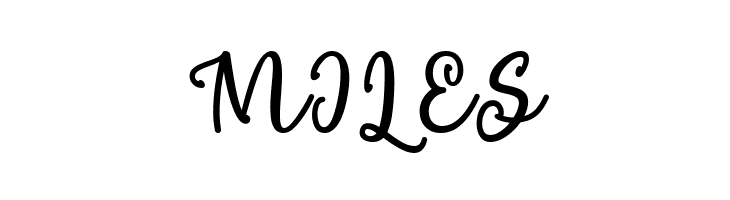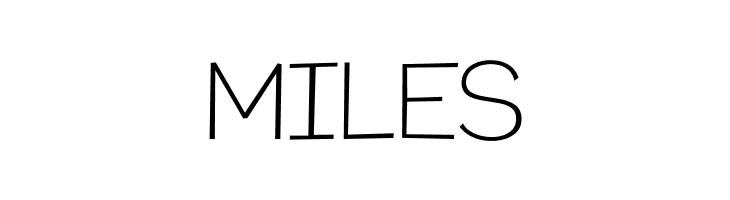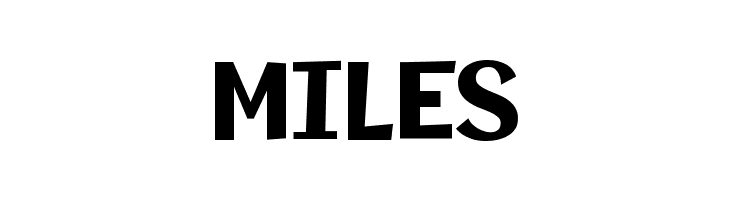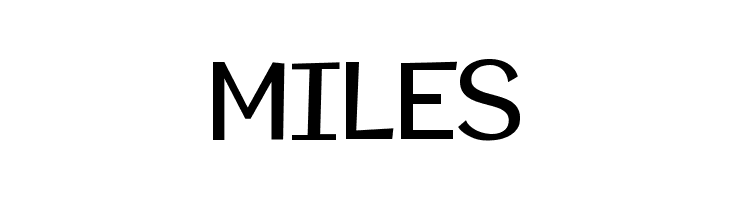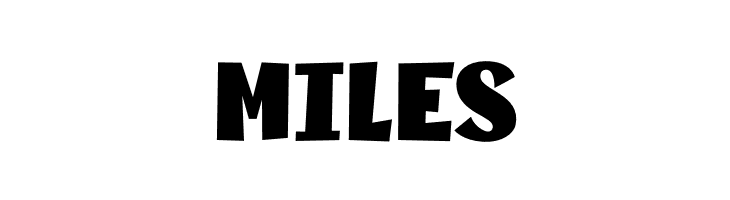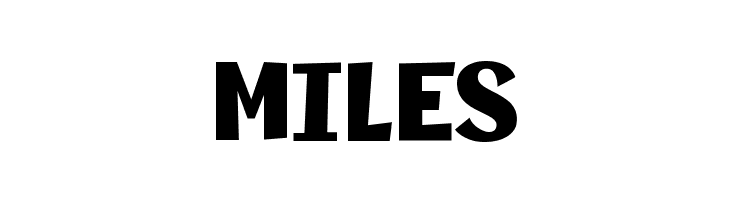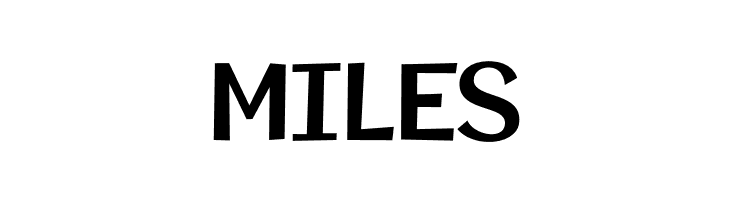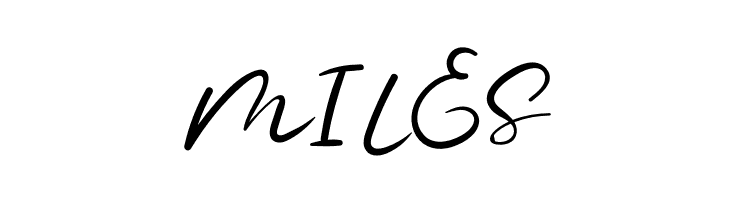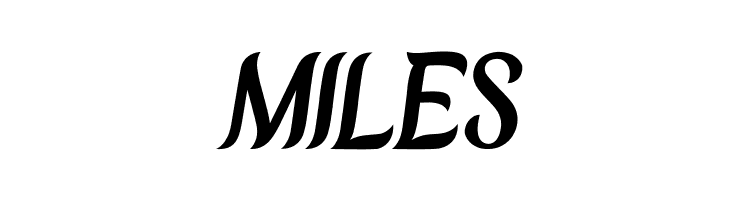
• Chameleon
A dynamic, brush-style script font with an expressive, hand-drawn appearance.
• ChaMeLEon DrEamS
A whimsical, artistic font with fluid, curvy lines and playful forms.
• ChaMeLEonDrEamS
A whimsical, artistic font with playful, exaggerated letterforms and a hand-drawn quality.
• Chamelon
A graceful script font with flowing, cursive letters and a natural handwritten style.
• Chameron
A dynamic and elegant script font with bold, flowing characters.
• Chamille
A lively, brush-style font with dynamic, handcrafted strokes.
• Chamoeflashe
A playful, bold font with rounded, smooth curves and a friendly appearance.
• Chamomile
A playful and elegant script font with flowing cursive letterforms.
• Champagne
An elegant script font with flowing, cursive letters and a sophisticated flair.
• Champagne Cyrillic
An elegant script font with ornate, flowing letterforms and high contrast strokes.
• Champigna
A playful, handwritten-style font with bold, rounded characters.
• Champigna
A modern sans-serif font with a clean, uniform appearance and a playful touch.
• Champigna-Black
A bold, playful font with rounded, whimsical characters.
• Champigna-Black
A bold, playful font with rounded characters and a modern, dynamic style.
• Champigna-Bold
A bold, playful font with rounded characters and a whimsical touch.
• Champigna-Bold
A bold, playful typeface with dynamic curves and strong presence.
• Champigna-Fat
A bold, playful font with exaggerated curves and thick strokes, perfect for lively designs.
• Champigna-Fat
A bold, playful typeface with a chunky, whimsical style.
• Champigna-Light
A modern, light sans-serif font with a clean and minimalistic style.
• Champigna-Light
A modern, light sans-serif font with clean lines and balanced spacing.
• Champigna-SemiBold